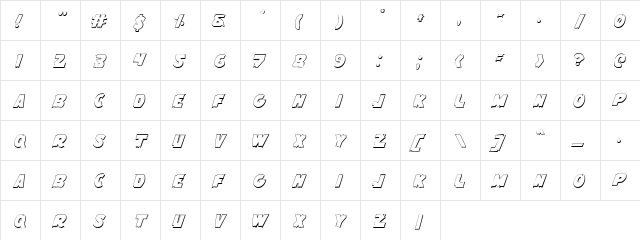
Flying Leatherneck Outline Outline
Design Context for Flying Leatherneck Outline Typeface
Flying Leatherneck Outline is built around its visual character rather than neutral utility — its distinctive forms are designed to make an impression at display sizes.
Font Pairing: Pair with a clean neutral sans-serif for body copy to let Flying Leatherneck Outline's character lead without overwhelming the composition.
Pro Tip: Use Flying Leatherneck Outline exclusively at display sizes — it was designed to be seen, not read at length. Let a neutral companion handle body copy.